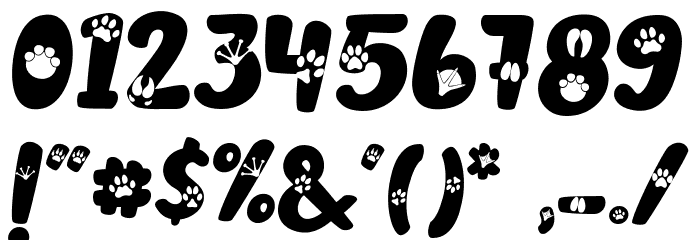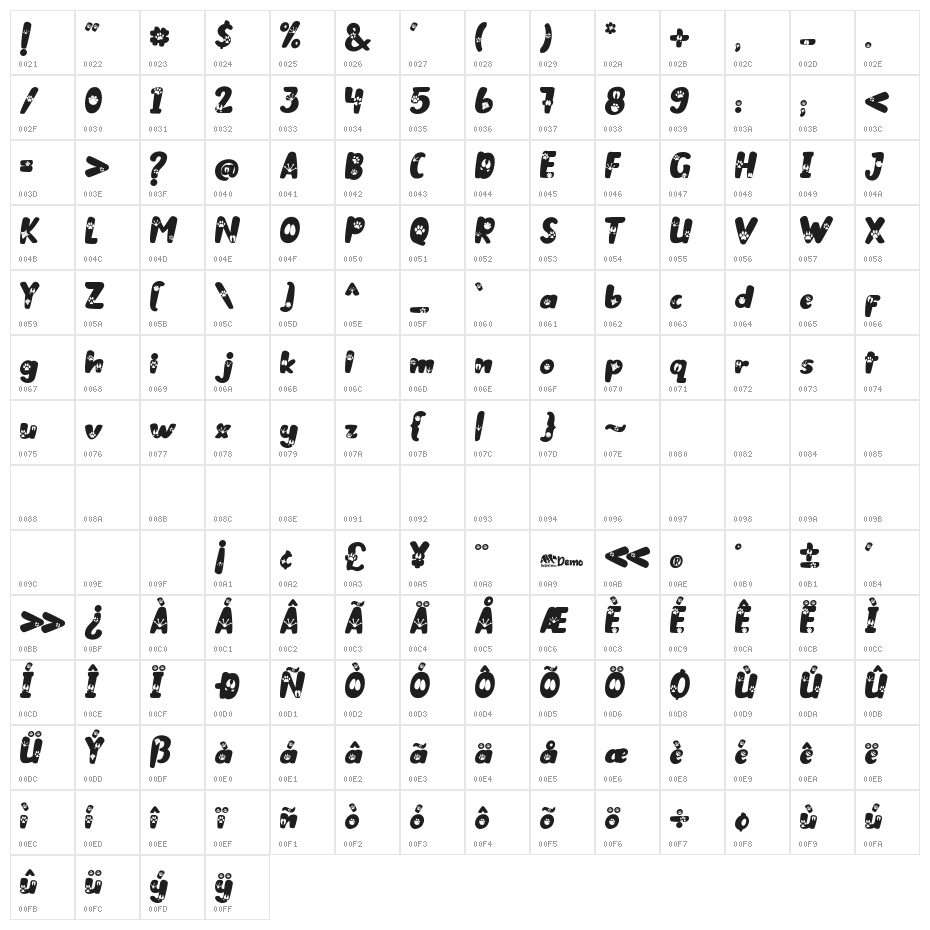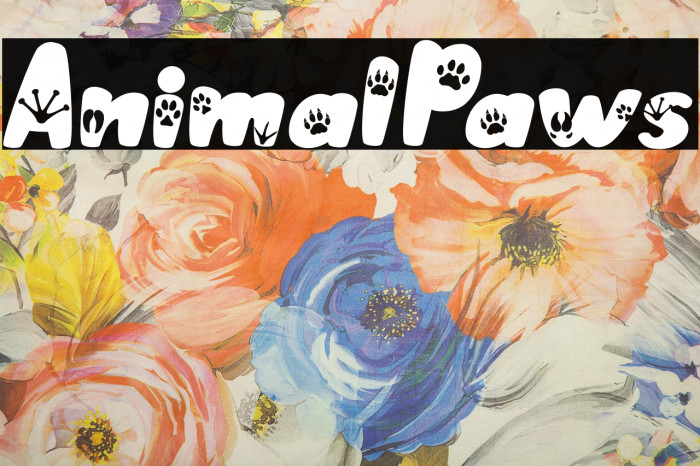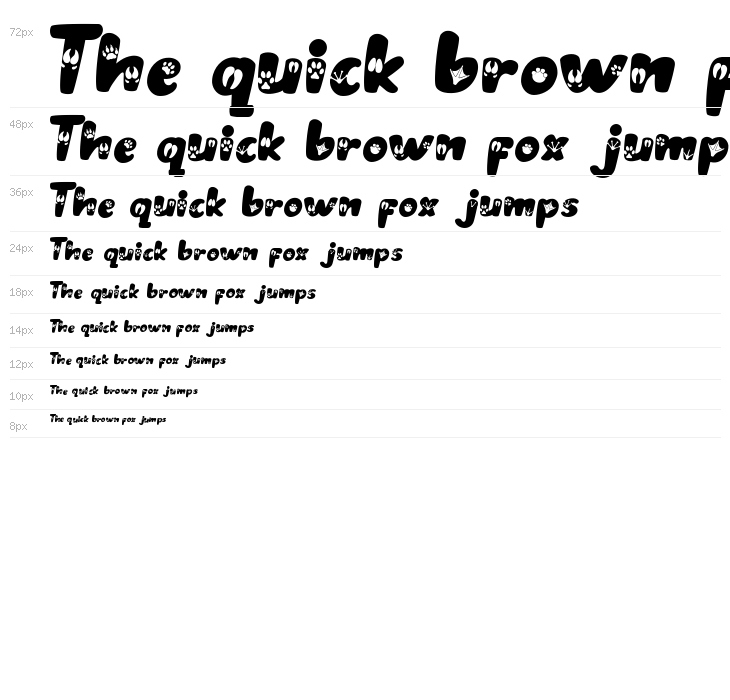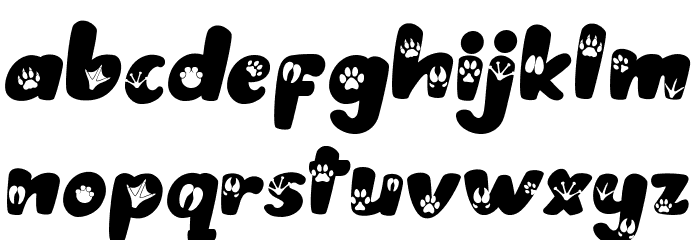
AnimalPaws Font
AnimalPaws Description
This playful and whimsical font features bold, rounded letters with charming animal paw prints integrated into each character. The design is both eye-catching and fun, making it perfect for projects that require a touch of creativity and lightheartedness. The letters are evenly spaced, ensuring readability while maintaining a unique style. The font includes both uppercase and lowercase letters, numbers, and a variety of special characters, all adorned with paw prints. Its bold appearance makes it suitable for headlines and titles, where it can stand out and draw attention.
| Proposed Projects | Ideal for children's books, pet-related branding, playful posters, and educational materials. |